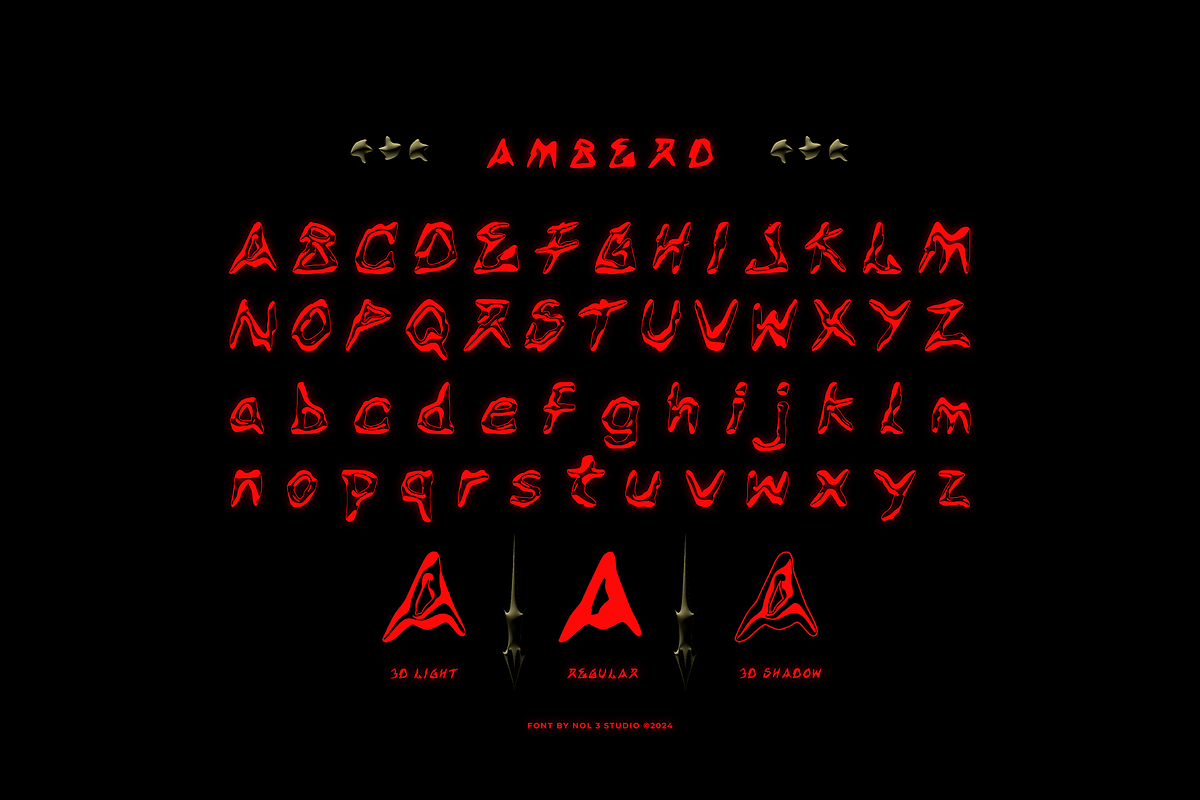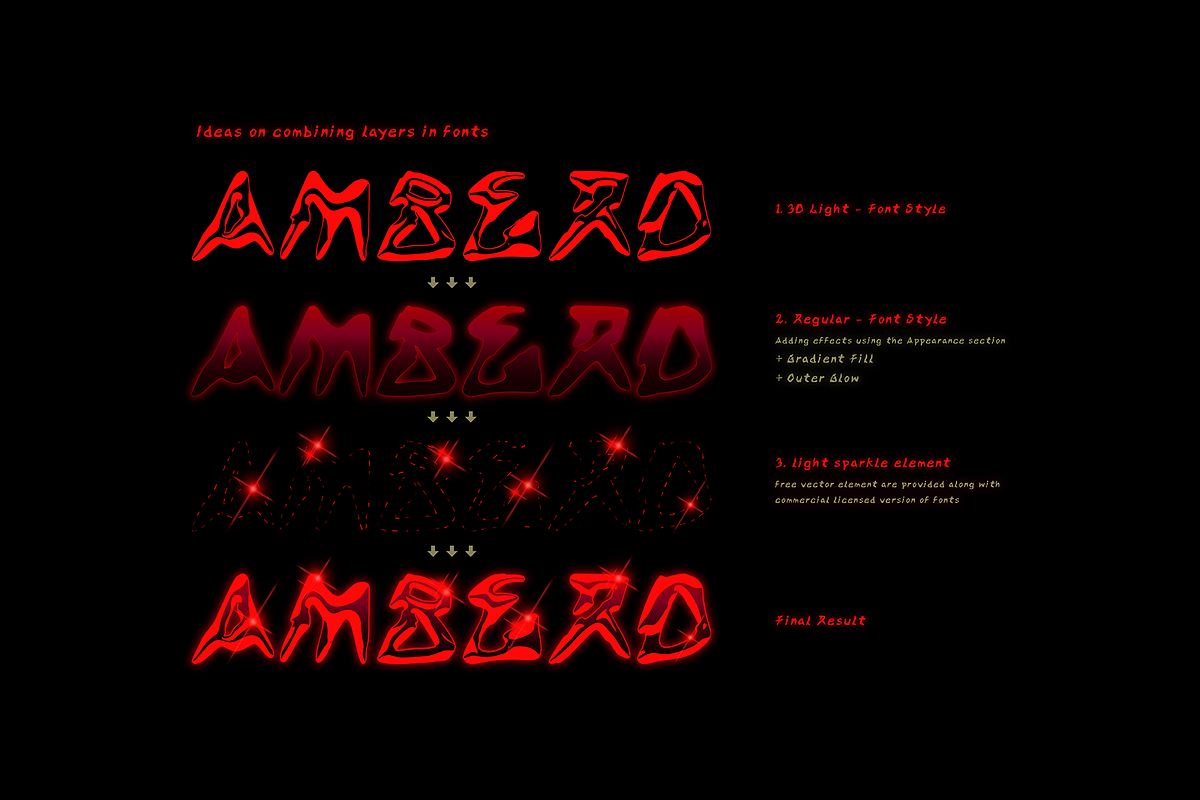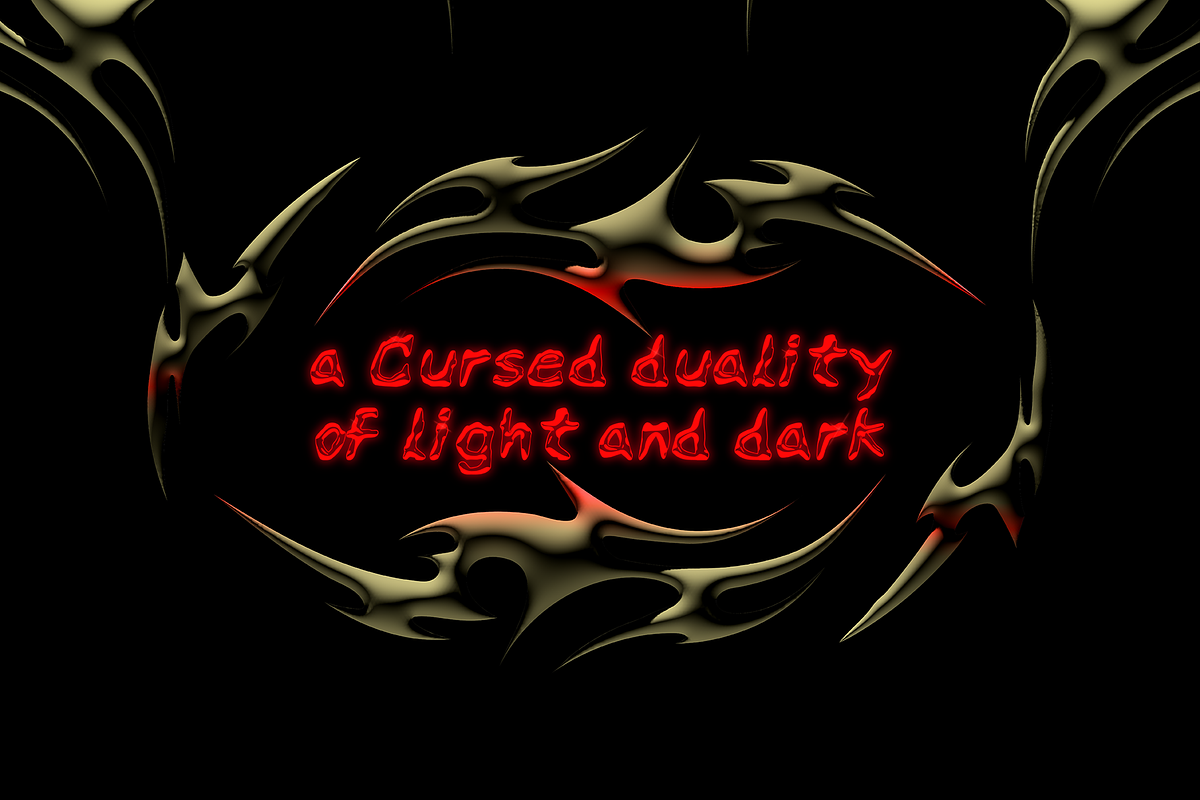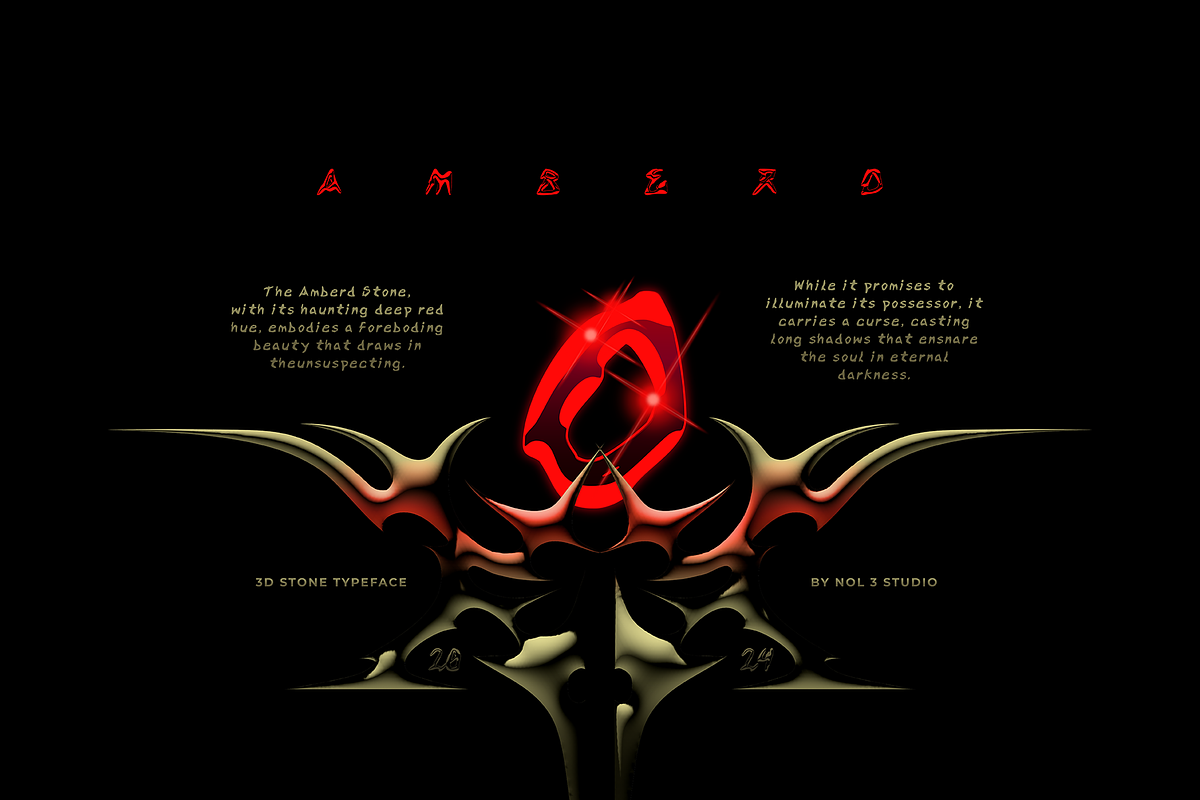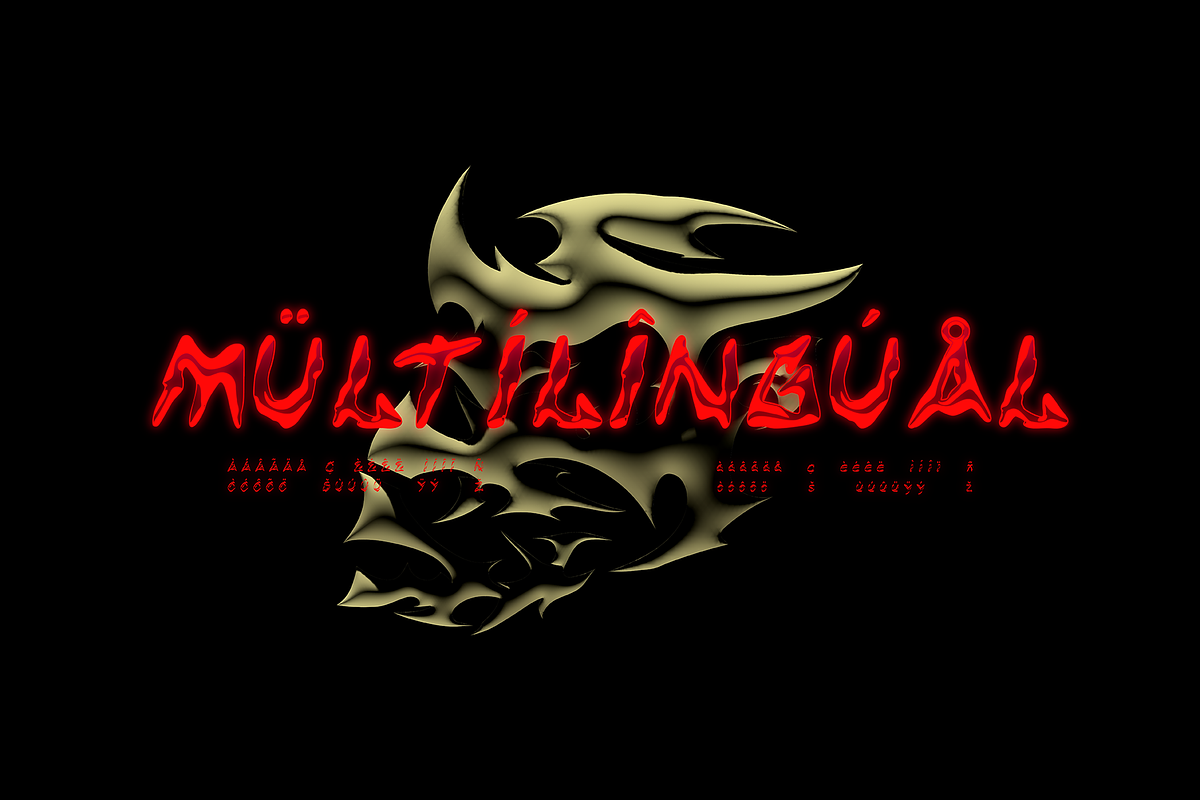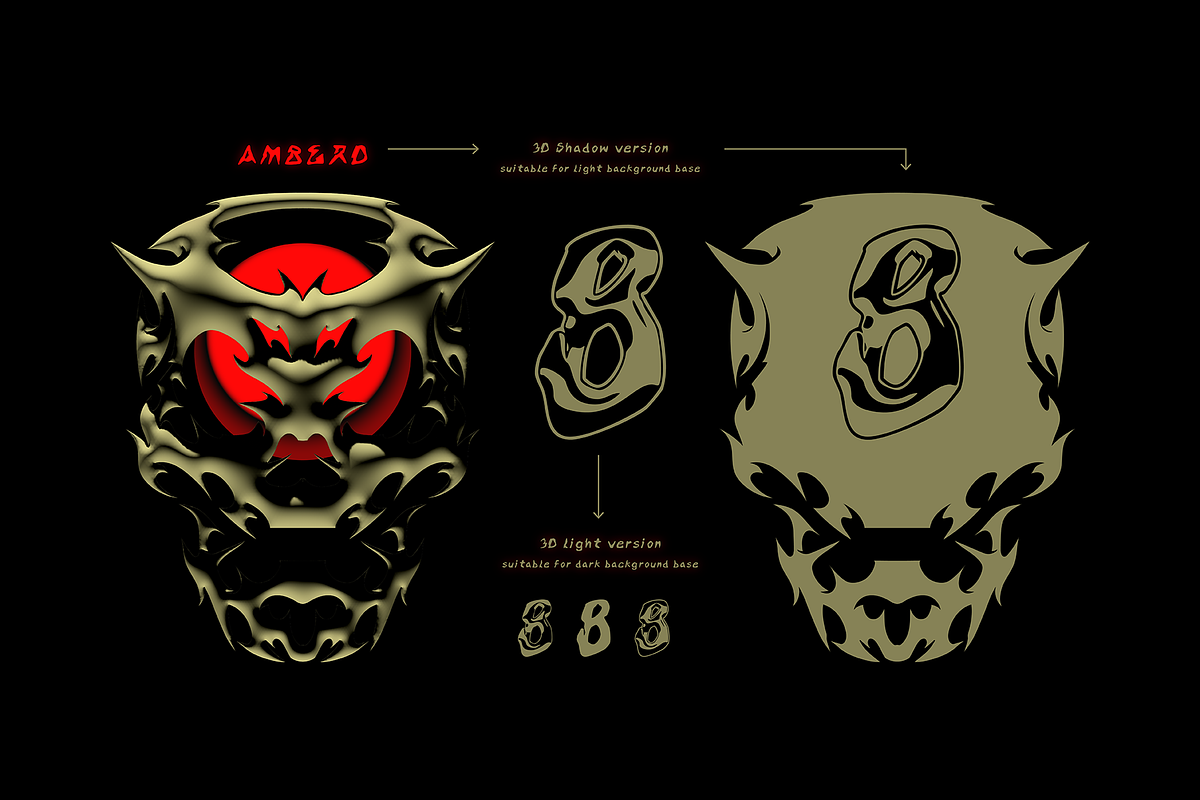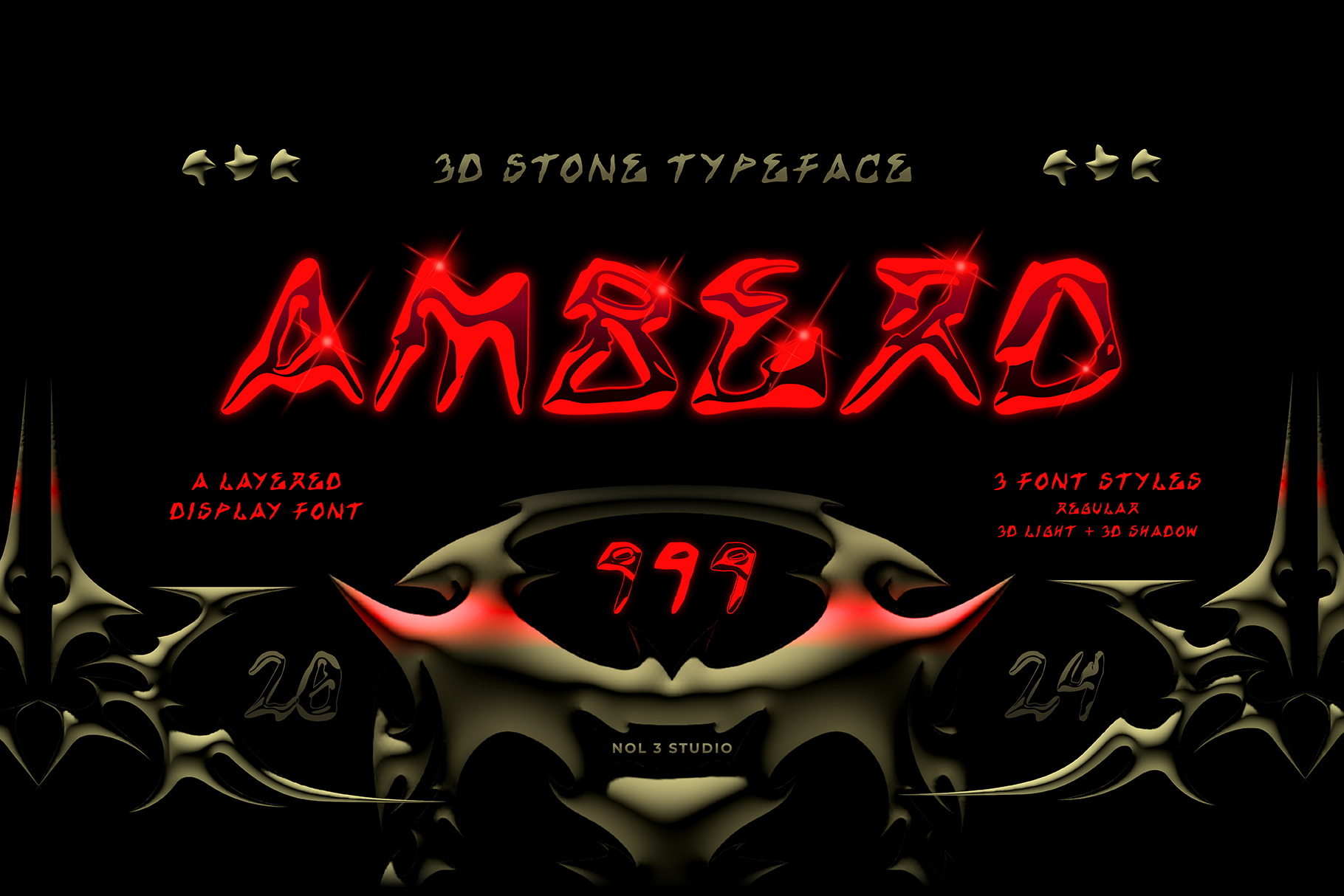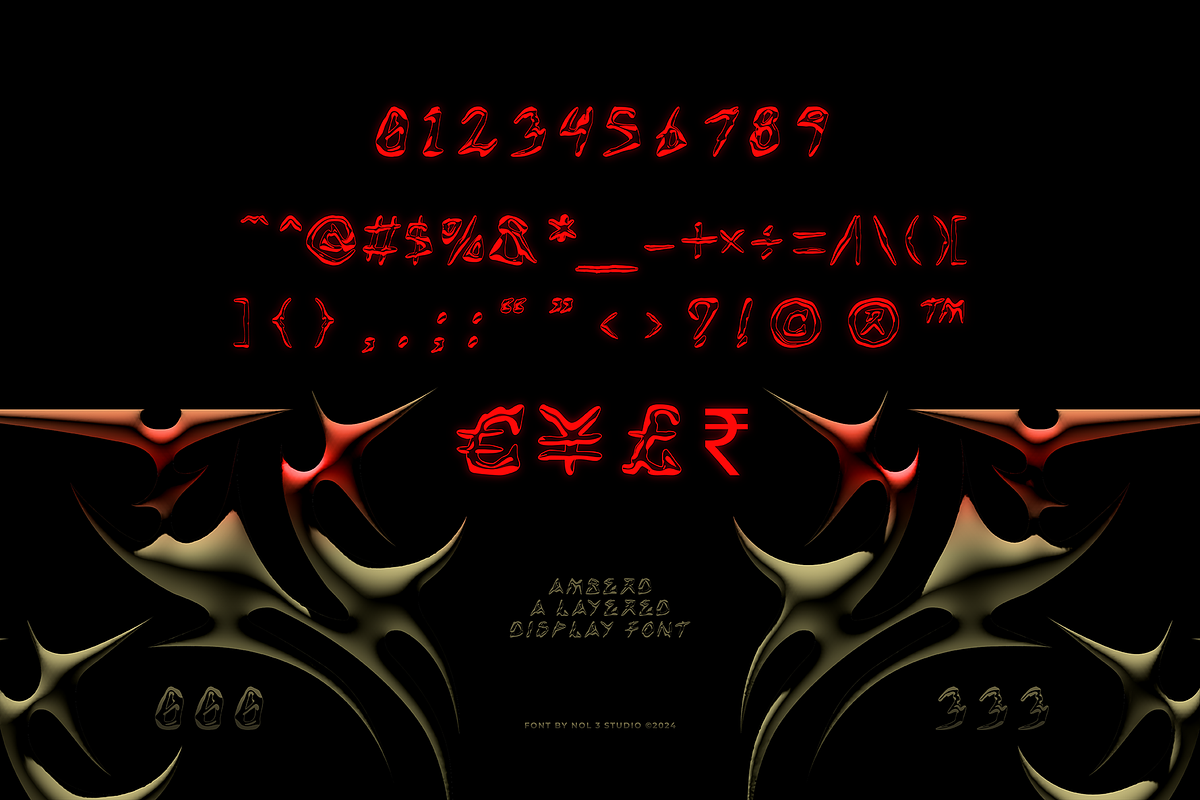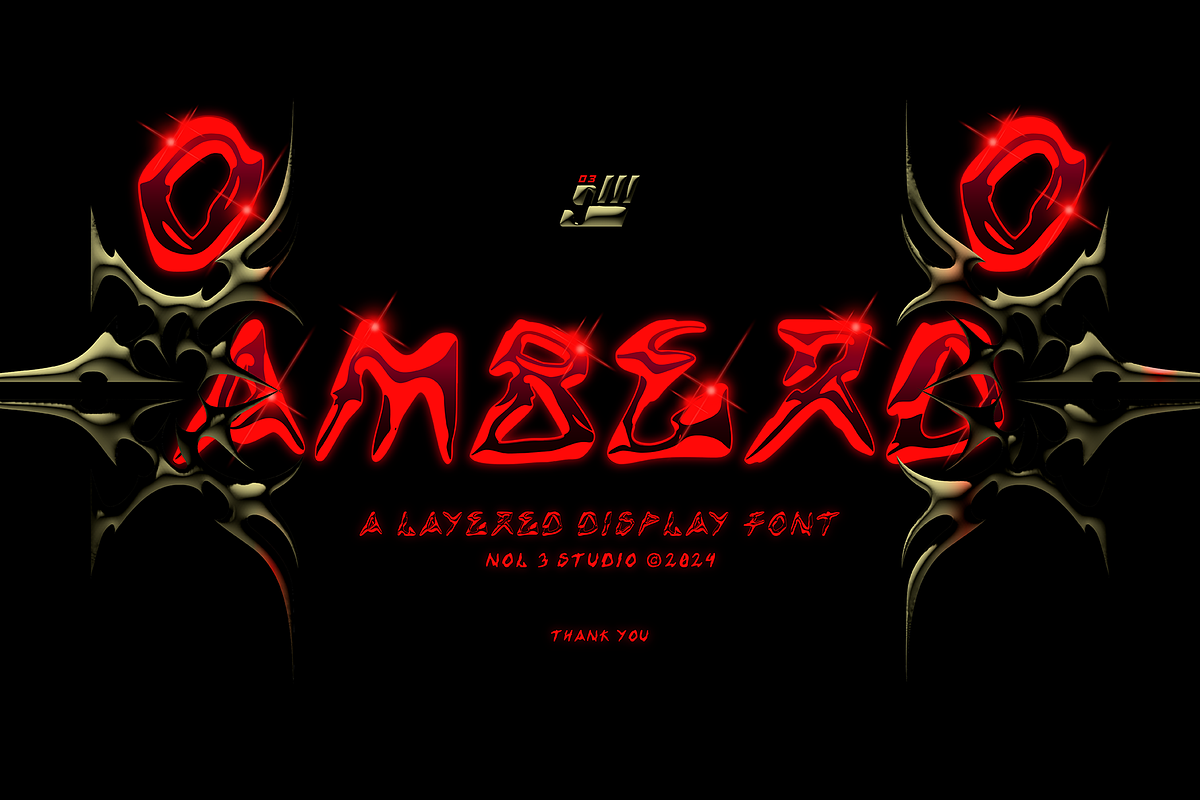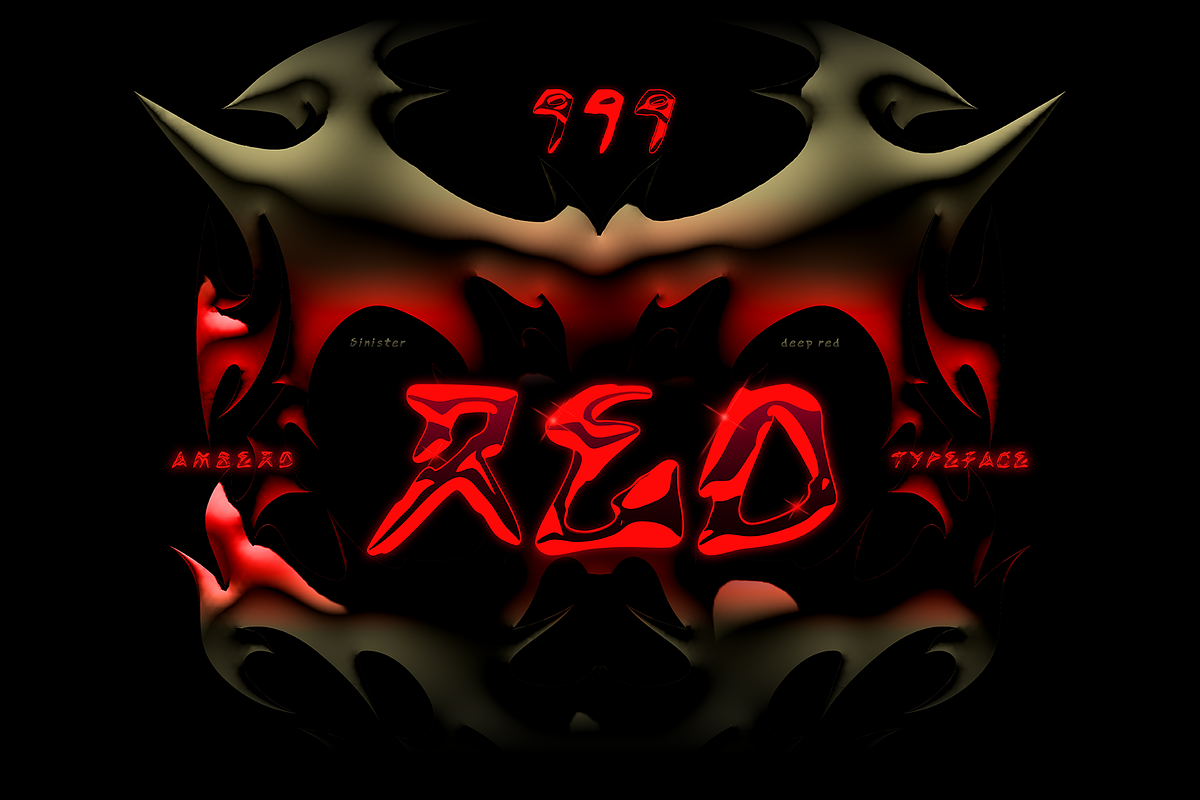
Amberd | 3d Stone Layered font
Amberd 3D stone Typeface by @bsenva, Display font inspired by red amber, featuring a hand-drawn raw style. It includes three distinct styles: Regular, 3D Light, and 3D Shadow.
Complete set of layered font, uppercase, lowercase, letters, numbers, punctuation, and multilingual support.